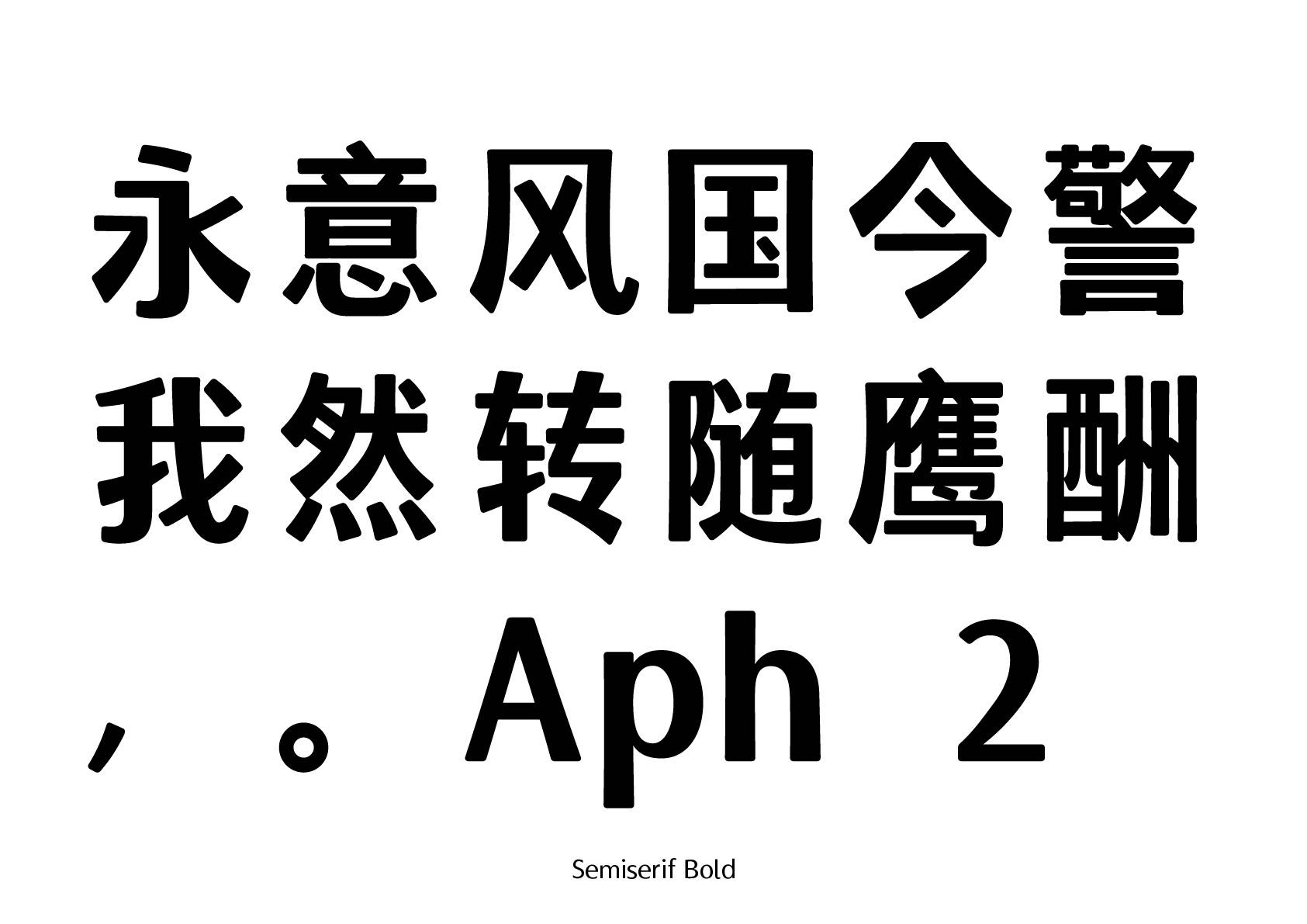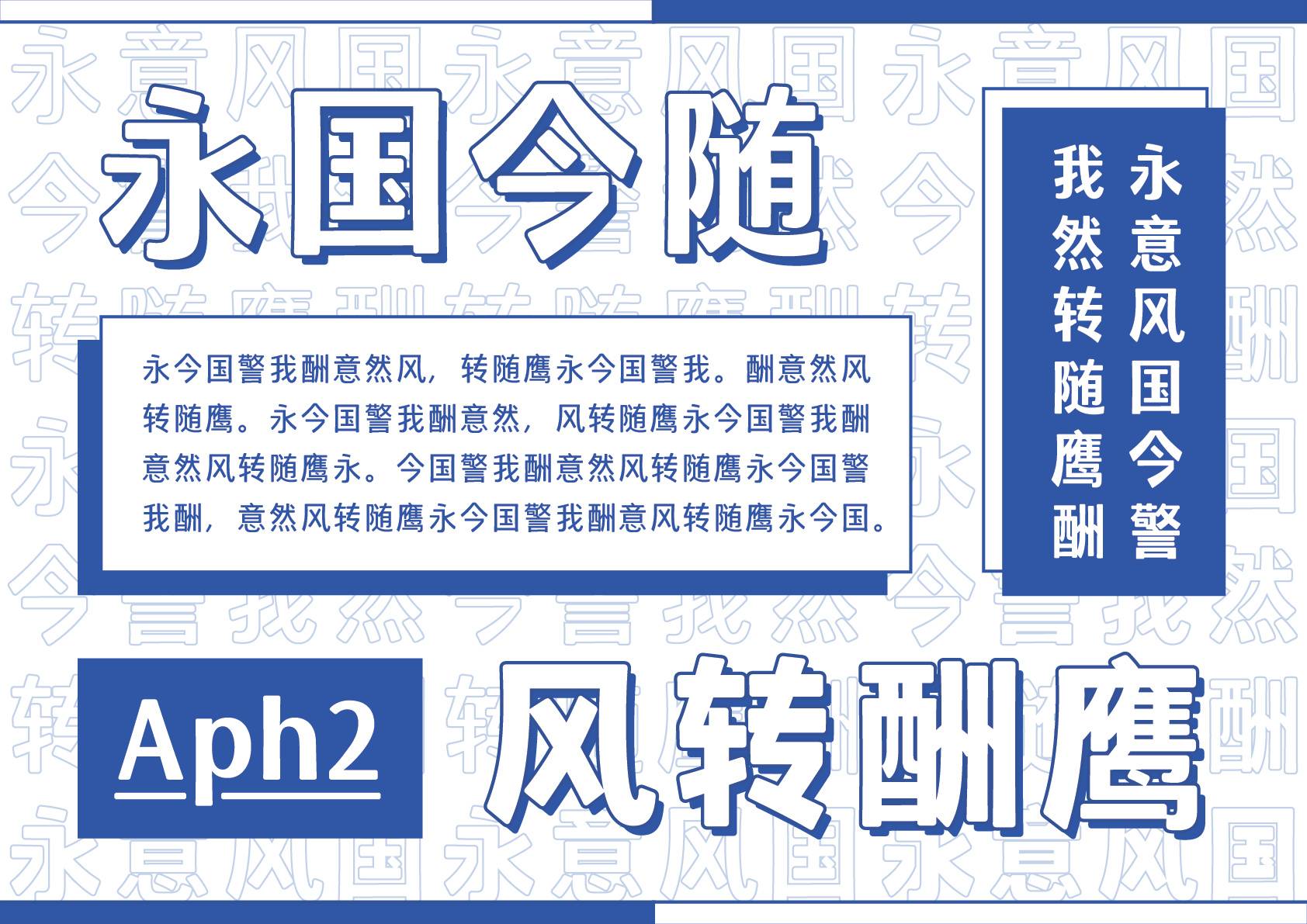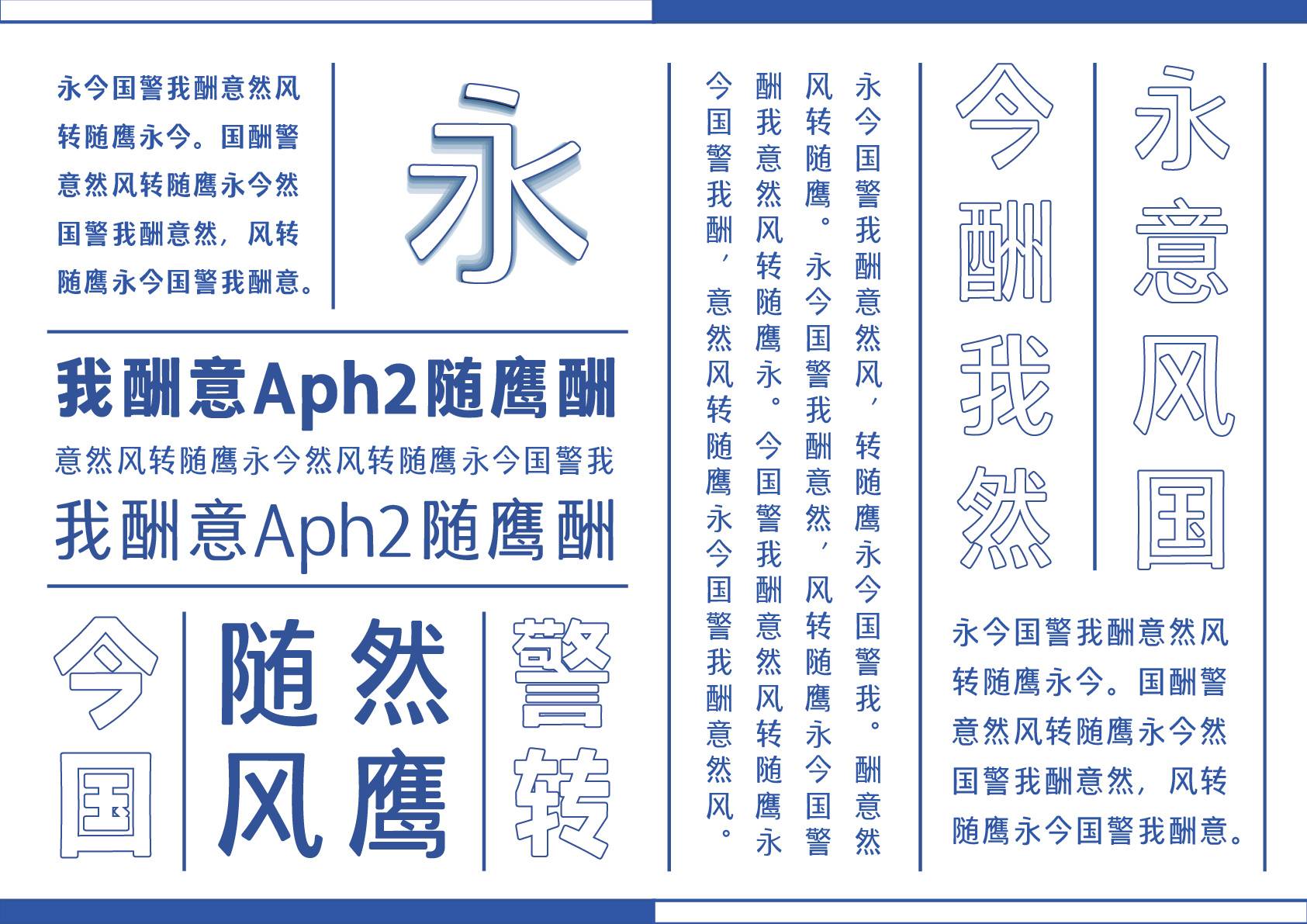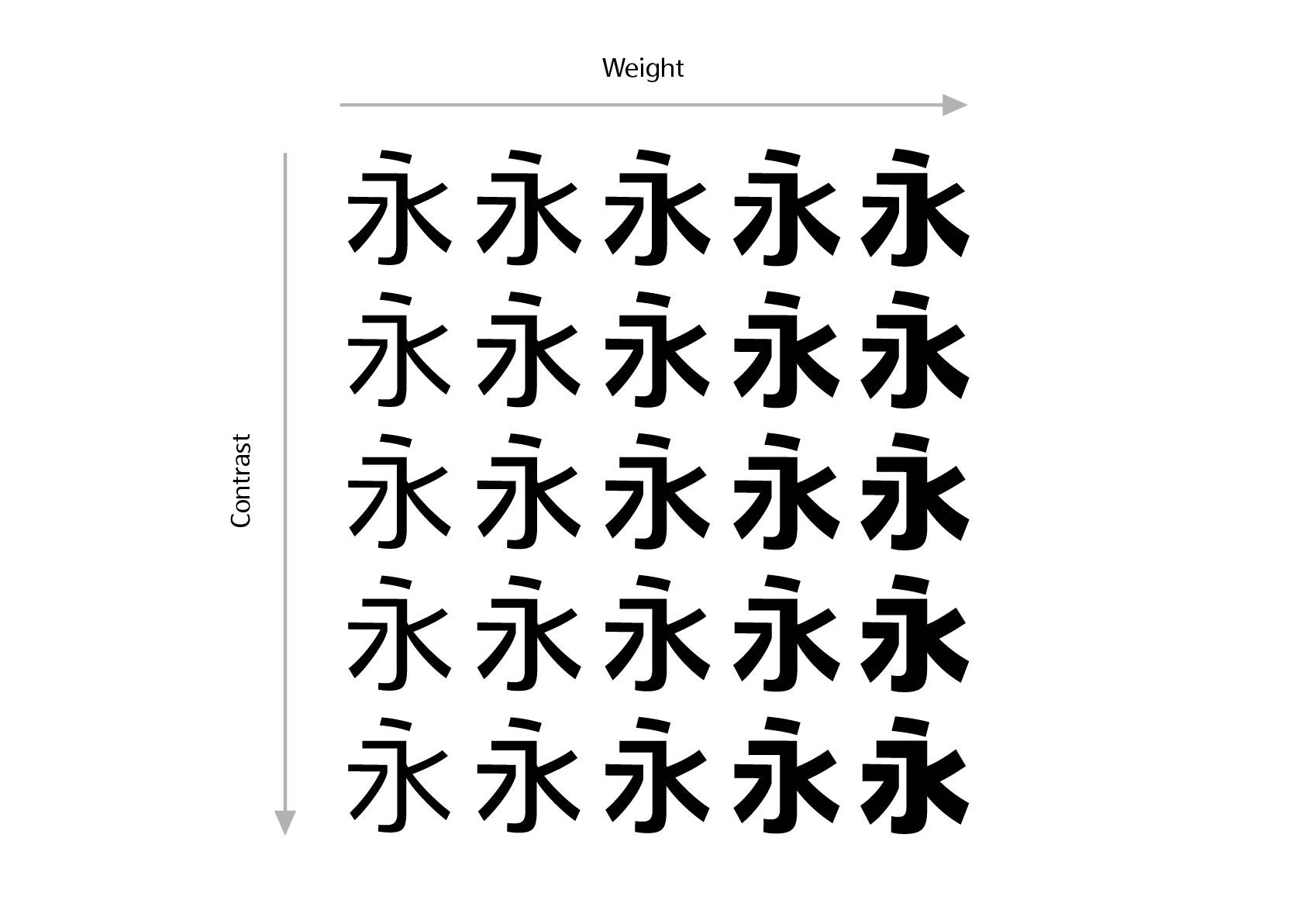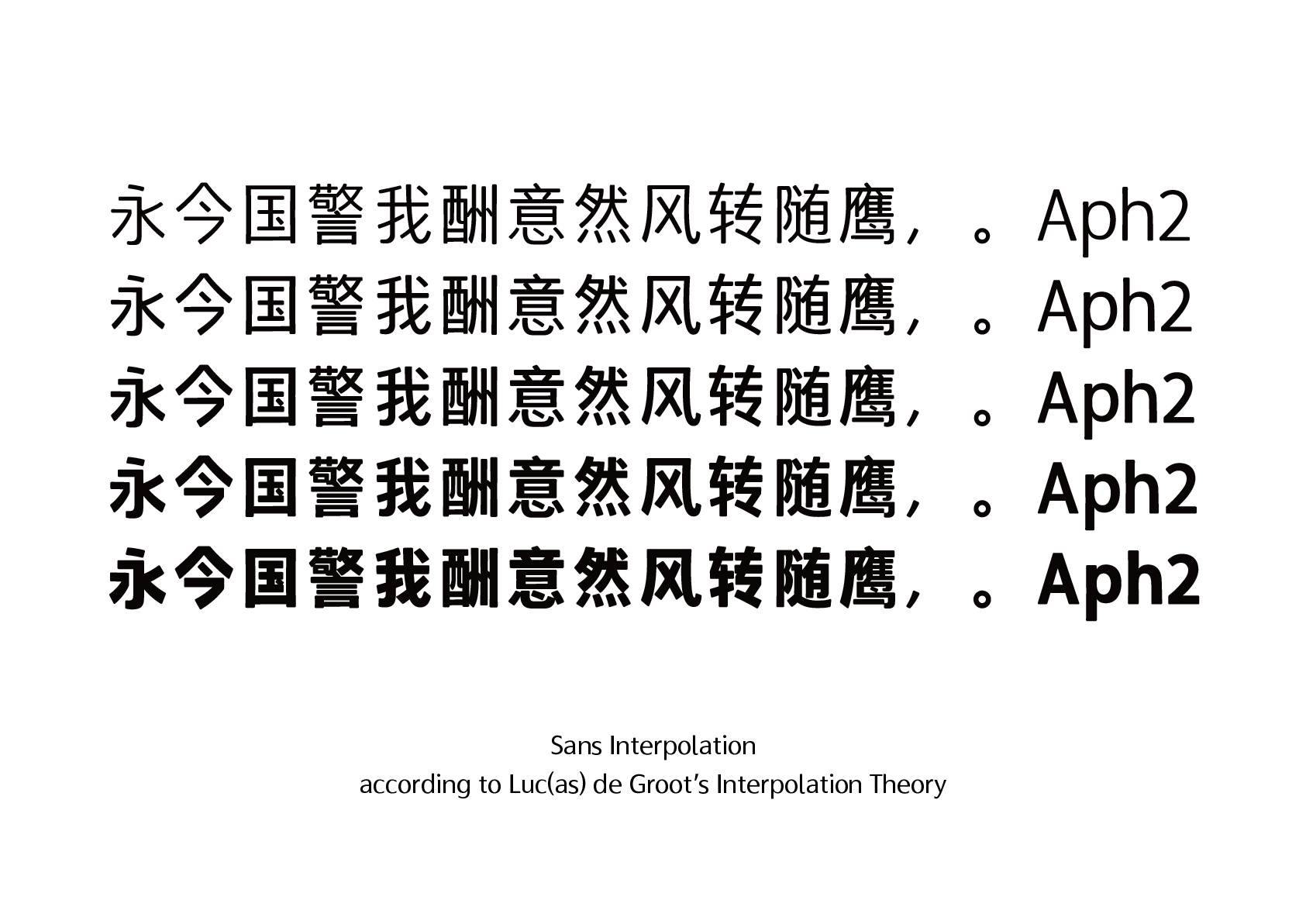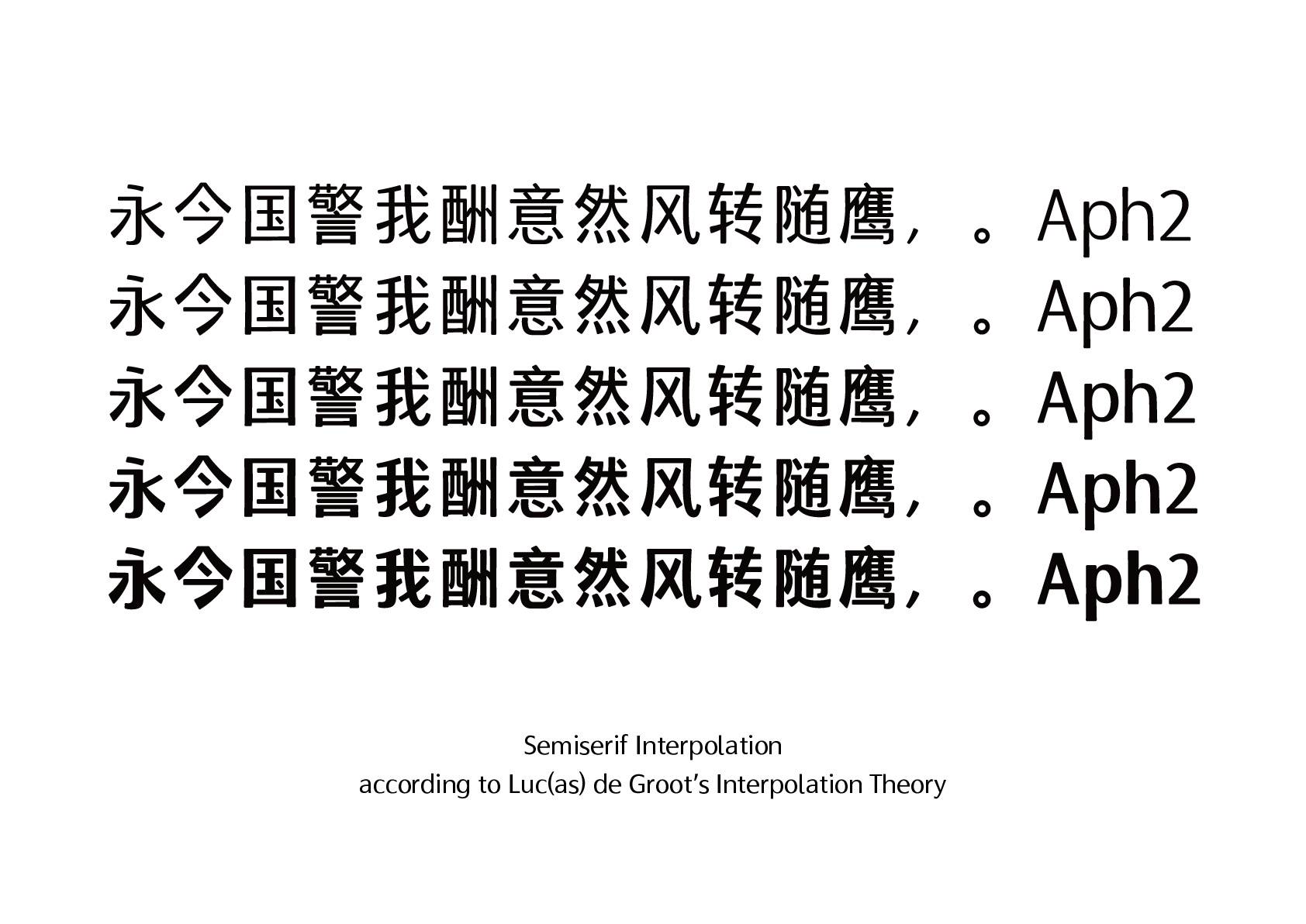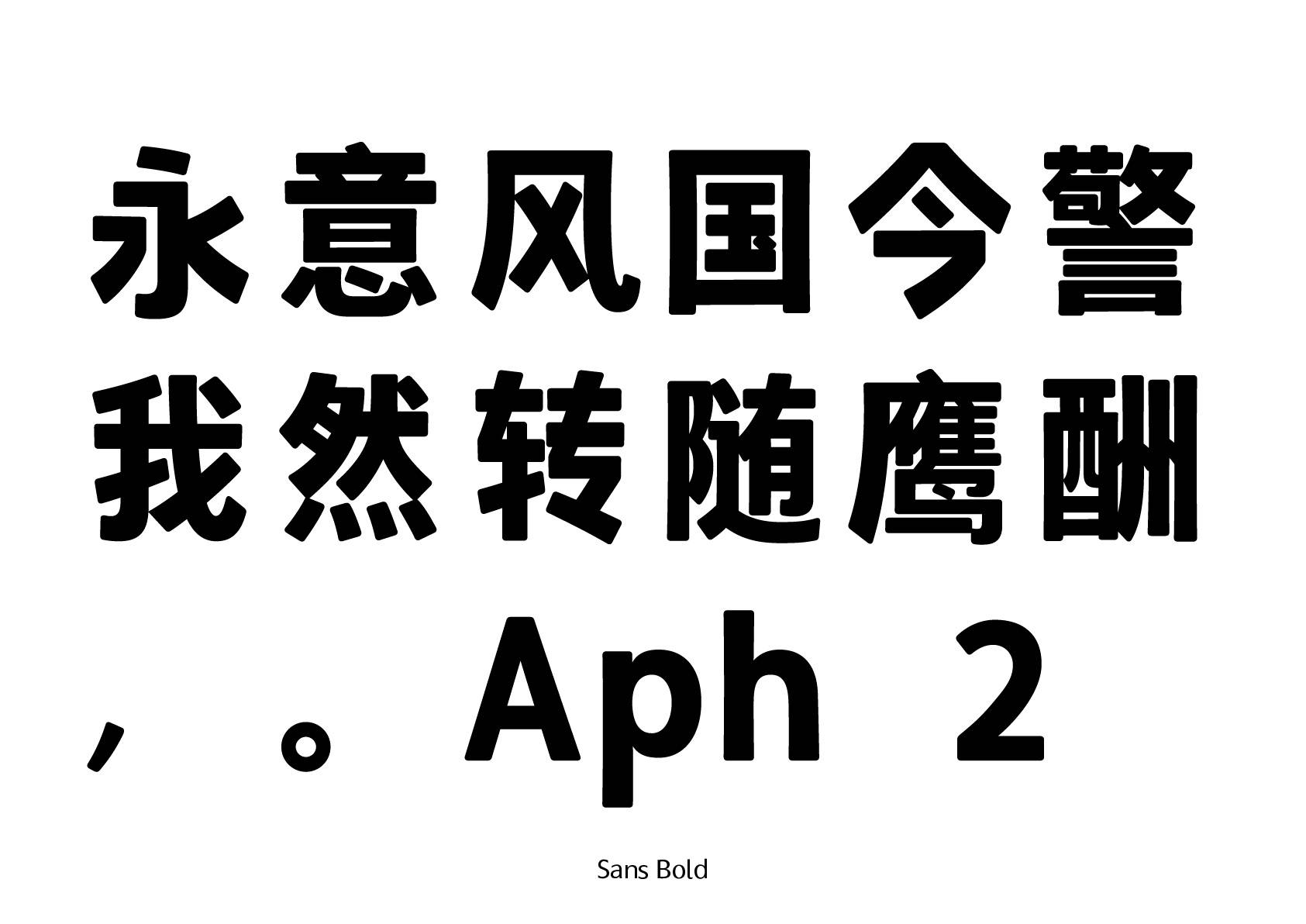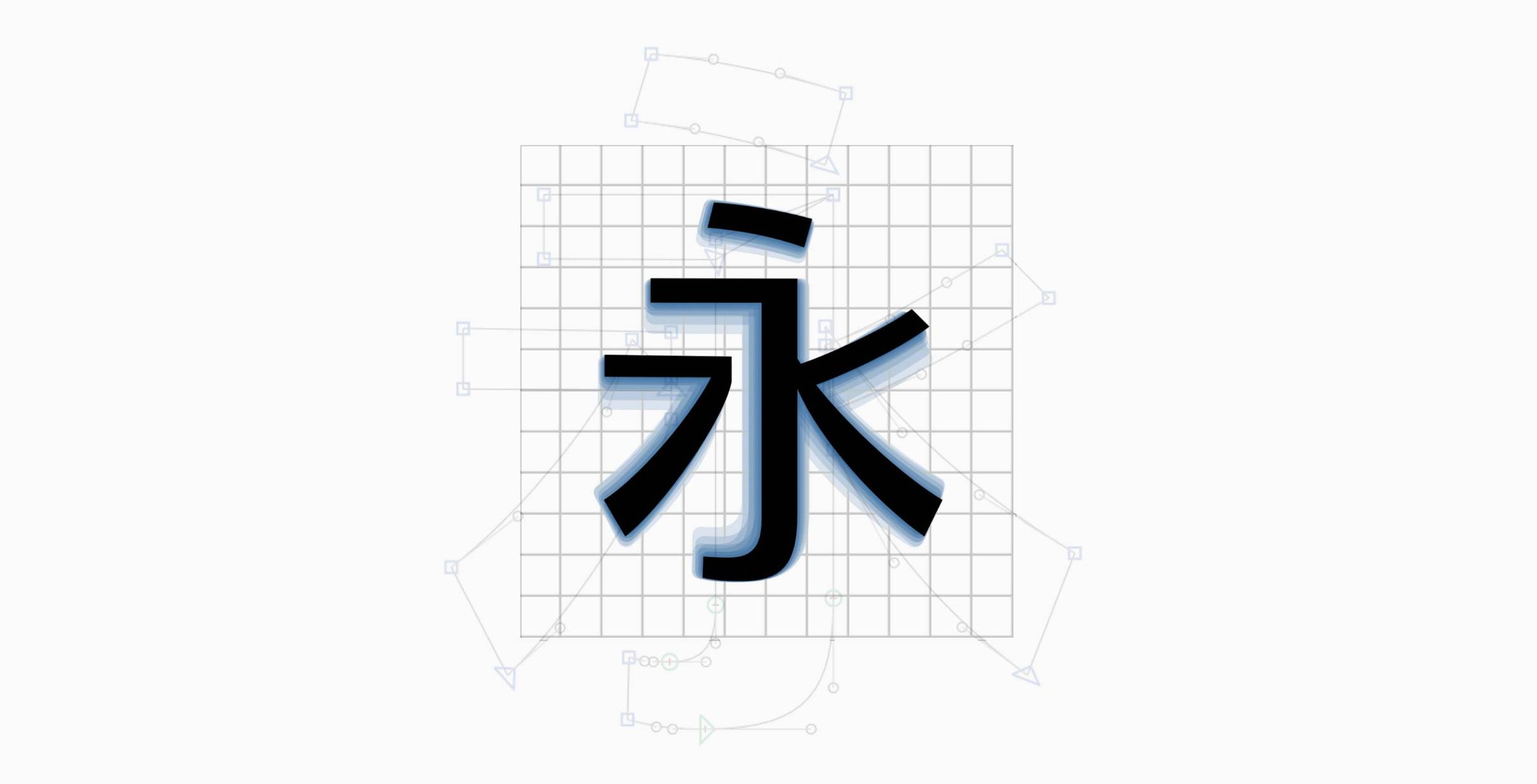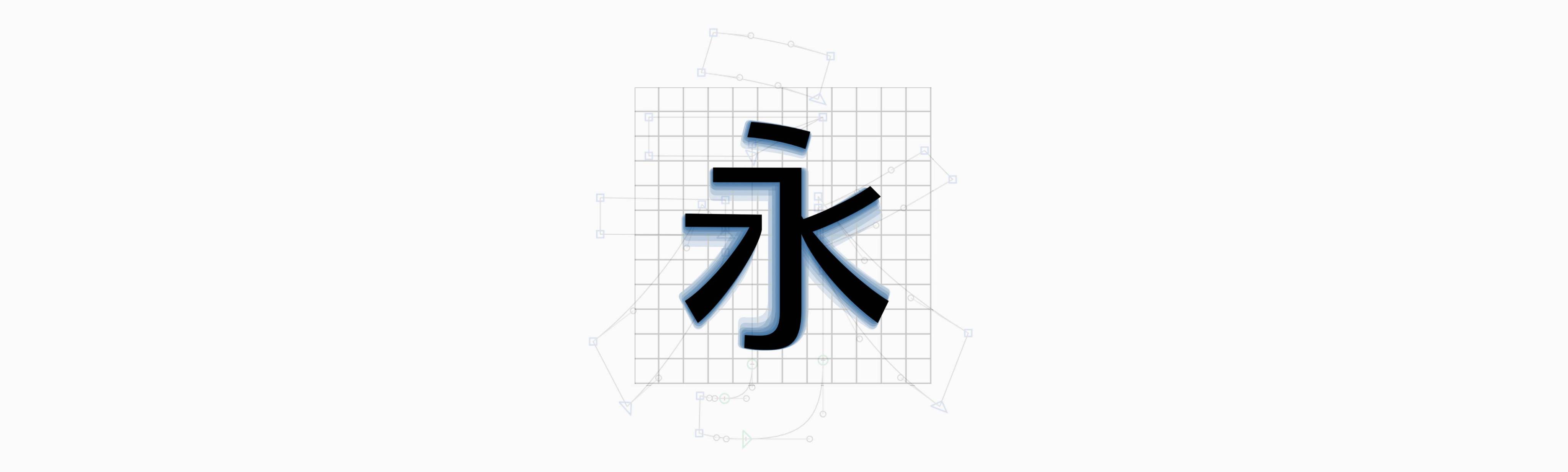
Coriand Variable Font
Coriand is a font experiment on Chinese variable font practices, is designed by me at TypeSchool Hanzi Course 2018 in Beijing, hosted by 3type.
Variable font, as a relatively new OpenType standard, is still a field that few people set foot in China. I hope through this experiment to open up some new possibilities for Chinese variable fonts.
Created within 6 days, Coriand only covers a few Chinese characters. I tried to explore a new adjustment axis besides (the old and cliche) font weight. So with Coriand, you can also adjust the stroke contrast of the typeface, which means you can easily switch between the semiserif style and the sans-serif style to accommodate the various needs of typographic design.
Font specimen
Two adjustment axis
Two semiserif masters
Two sanserif masters
Interpolations according to Luc(as) de Groot’s Theory
Specimen – fonts in use